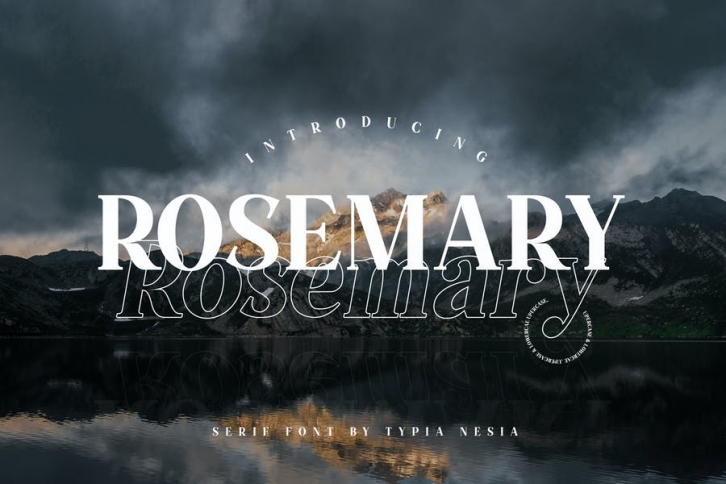
Hello, looking for a new elegant font with classy and modern feels. Rosemary Serif font is perfect for your up coming projects. Such as logo branding, stationery design, blog design, modern advertising design, card invitation, art quote, home decor, book/cover title, special events ( wedding, birthday, etc ), and any more.
Rosemary Serif (.ttf + .otf) comes with upper and lowercase Standard Characters, Punctuation, Numerals. Rosemary Slant Serif (.ttf + .otf) the slant version of Rosemary Serif. Includes a range of multilingual characters.